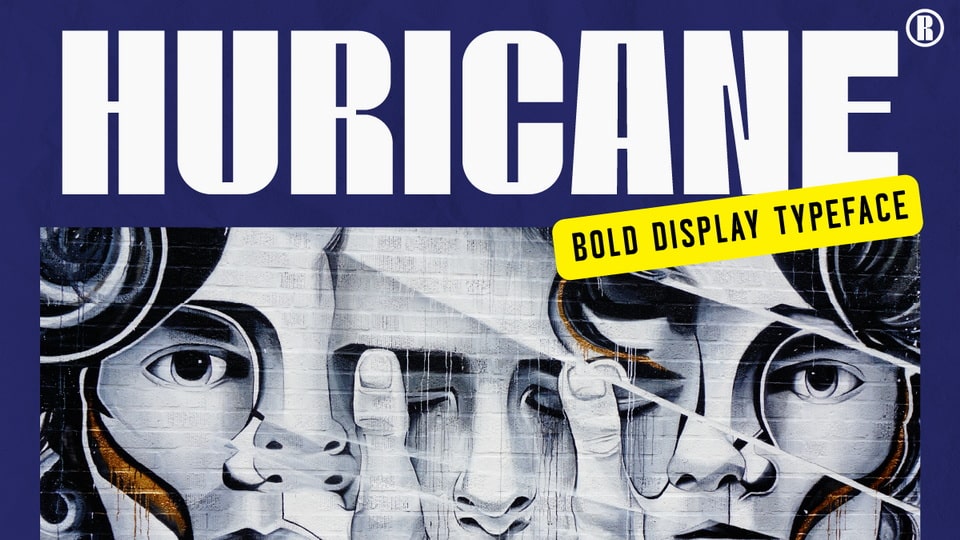
Download Huricane font, a bold display typeface with a futuristic look. It’s super fun and playful with a strong personality. Hurricane font is perfect for your logo, brand, title or whatever your creativity is.